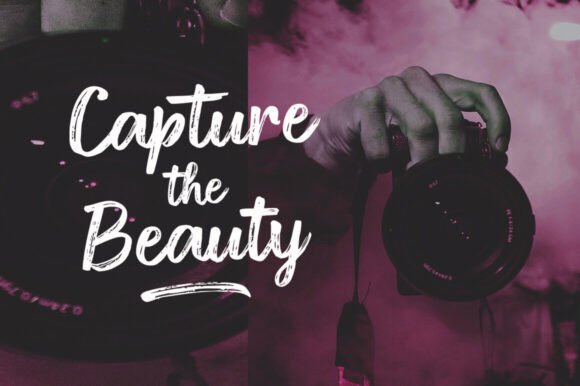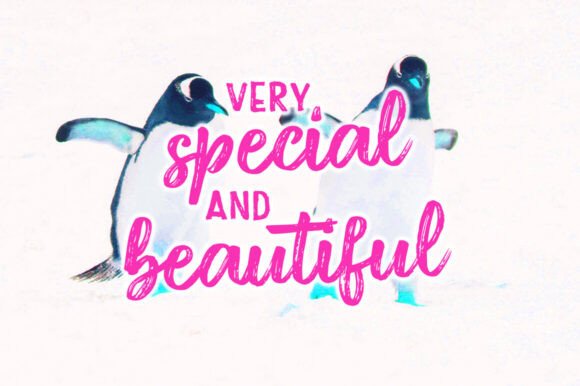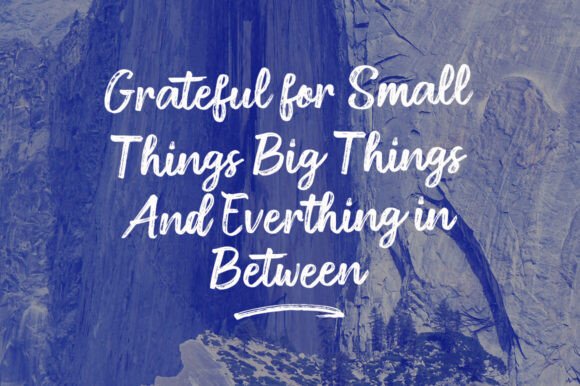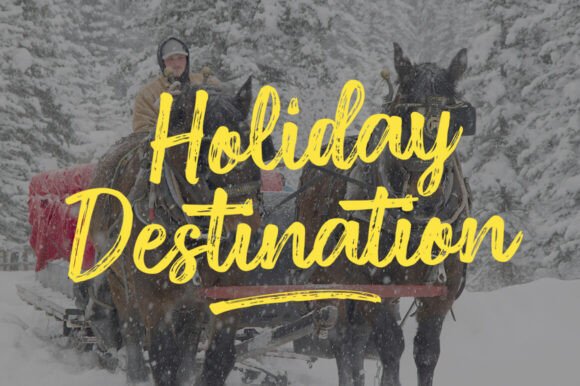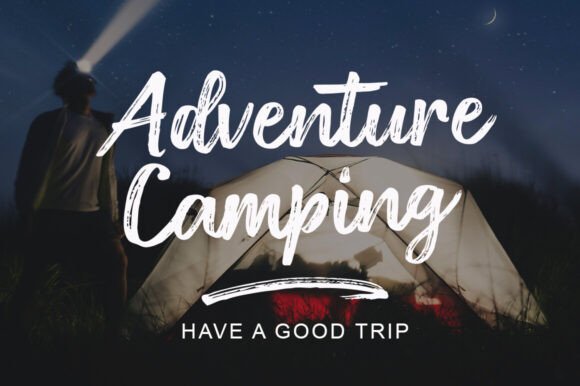
Introducing Diston Brush Font: Elevate Your Designs with a Touch of Natural Elegance
In the world of typography, a new font has emerged that is taking the design community by storm. Say hello to Diston Brush Font, a stunning new addition that brings a fresh perspective to the world of brushed fonts. With its natural, detailed, and perfect texture, Diston Brush Font is poised to become a favorite among designers, crafters, and anyone looking to add a touch of elegance to their projects.
The Unique Charm of Diston Brush Font
Diston Brush Font boasts a unique charm that sets it apart from other fonts in its class. Its natural texture, reminiscent of hand-brushed strokes, adds a level of authenticity to any design. The font’s detailed and perfect texture makes it suitable for a wide range of applications, from brand projects and logos to product packaging, posters, invitations, and greeting cards.
Key Features of Diston Brush Font
- Natural Texture: Diston Brush Font features a natural, hand-brushed texture that adds a touch of warmth and authenticity to your designs.
- Detailed and Perfect: The font’s detailed and perfect texture makes it suitable for high-end designs, such as luxury brands, product packaging, and premium products.
- Diston Underlines: The font comes with an additional Diston Underlines feature, which adds an extra layer of creativity to your designs.
- Versatile: Diston Brush Font is perfect for a wide range of applications, including brand projects, logos, product packaging, posters, invitations, greeting cards, news, blogs, and personal projects.
Why Designers and Crafters Love Diston Brush Font
Diston Brush Font has quickly become a favorite among designers and crafters due to its versatility and unique charm. Here are just a few reasons why:
- Customization: Diston Brush Font offers a high level of customization, allowing designers to experiment with different styles and effects.
- Unique Look: The font’s natural texture and detailed strokes give it a unique look that sets it apart from other fonts.
How to Use Diston Brush Font in Your Designs
Using Diston Brush Font in your designs is easy. Here are a few tips to get you started:
- Pair it with Other Fonts: Diston Brush Font pairs well with other fonts, making it easy to create stunning contrast and visual interest.
- Experiment with Colors: The font works well with a range of colors, from bold and bright to soft and pastel.
- Add Texture and Effects: Experiment with adding texture and effects to your designs to give them an extra layer of depth and interest.
| Font Name | Diston Brush Font |
| Author | Stripes Studio |
Diston Brush Font is a game-changer for designers and crafters looking to elevate their designs with a touch of natural elegance. With its unique charm, versatility, and ease of use, this font is sure to become a staple in any designer’s toolkit. Whether you’re working on a brand project, logo, product packaging, or personal project, Diston Brush Font is the perfect choice.